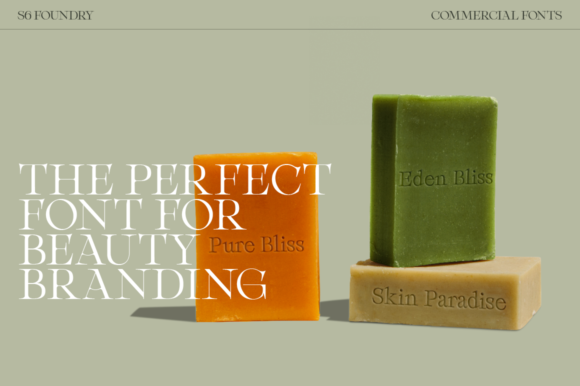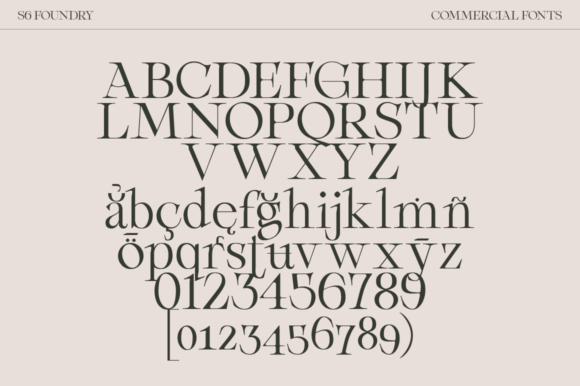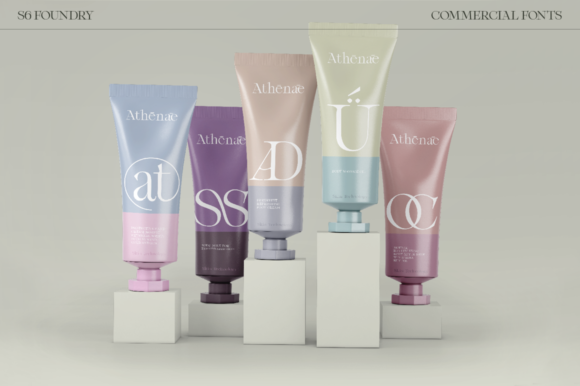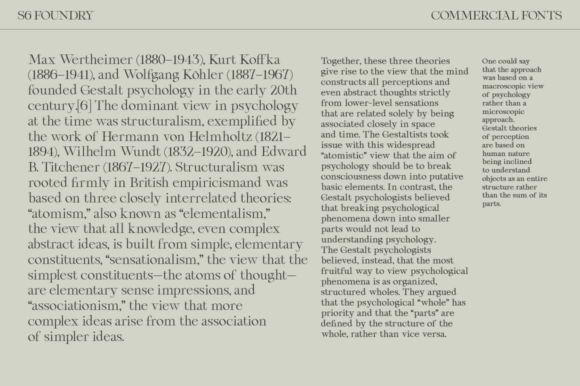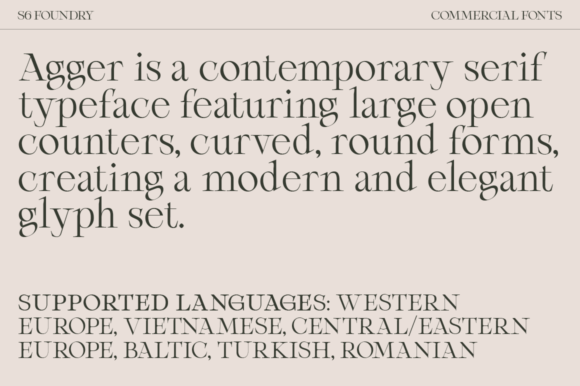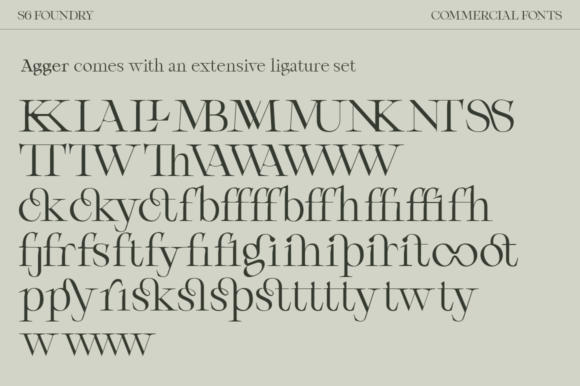
Introducing Agger Font: The Bold and Contemporary Serif Choice
Are you tired of using the same old fonts in your design projects? Look no further than Agger Font, a bold and contemporary serif font that’s sure to make your creations stand out. With its sleek lines and modern aesthetic, Agger is the perfect choice for designers and crafters looking to add a touch of sophistication to their work.
What is Agger Font?
Agger Font is a serif font, which means it features small lines or flourishes at the ends of the letters. This style of font is classic and timeless, yet Agger’s bold and contemporary take on the serif font makes it anything but traditional. Its clean lines, precise curves, and balanced proportions make it a versatile choice for a wide range of design projects.
Key Features of Agger Font
- Bold and Contemporary: Agger Font is designed to make a statement. Its bold lines and modern aesthetic make it perfect for headlines, titles, and other design elements where you want to grab attention.
- Serif Style: The serif style of Agger Font adds a touch of sophistication and elegance to your designs. The small lines or flourishes at the ends of the letters create a sense of refinement and luxury.
- Versatile: Agger Font is incredibly versatile and can be used in a wide range of design projects, from print materials like brochures and posters to digital projects like websites and social media graphics.
- Easy to Read: Despite its bold style, Agger Font is easy to read, even at smaller sizes. This makes it perfect for body text, captions, and other design elements where readability is key.
How to Use Agger Font in Your Design Projects
Agger Font is incredibly easy to use and can be matched to an incredibly large set of projects. Here are a few ideas to get you started:
- Headlines and Titles: Use Agger Font to create bold and eye-catching headlines and titles. Its modern aesthetic and serif style make it perfect for grabbing attention and adding a touch of sophistication to your designs.
- Branding and Identity: Agger Font is a great choice for branding and identity projects, such as logos, business cards, and letterheads. Its bold and contemporary style makes it perfect for creating a strong and memorable brand image.
- Print Materials: Agger Font is perfect for print materials like brochures, posters, and flyers. Its bold lines and modern aesthetic make it perfect for grabbing attention and adding a touch of sophistication to your designs.
- Digital Projects: Agger Font is also great for digital projects like websites, social media graphics, and email marketing campaigns. Its clean lines and precise curves make it perfect for creating professional-looking digital designs.
Tips for Getting the Most Out of Agger Font
Here are a few tips for getting the most out of Agger Font:
- Experiment with Different Sizes: Agger Font is bold and contemporary, but it’s also versatile. Experiment with different sizes to find the perfect balance for your design project.
- Pair it with Other Fonts: Agger Font is a great choice for headlines and titles, but it’s also great to pair with other fonts for body text and other design elements. Try pairing it with a clean sans-serif font for a modern and sophisticated look.
- Use it Consistently: To create a strong and memorable brand image, use Agger Font consistently across all your design projects. This will help to create a cohesive look and feel that will make your brand stand out.
| Font Name | Agger Font |
| Author | S6 Foundry |
Agger Font is a bold and contemporary serif font that’s perfect for designers and crafters looking to add a touch of sophistication to their work. Its sleek lines, modern aesthetic, and versatile style make it a great choice for a wide range of design projects. Whether you’re working on a print project, a digital project, or a branding and identity project, Agger Font is sure to make your creations stand out. So why not give it a try and see the difference it can make?